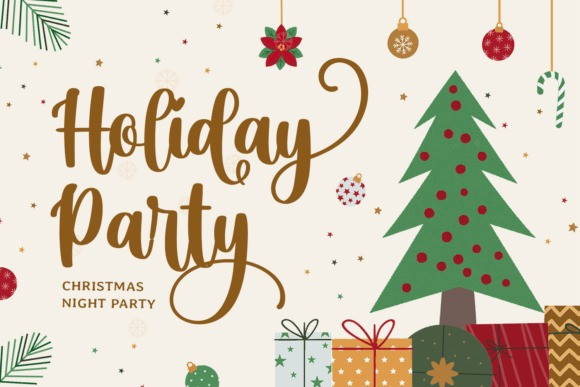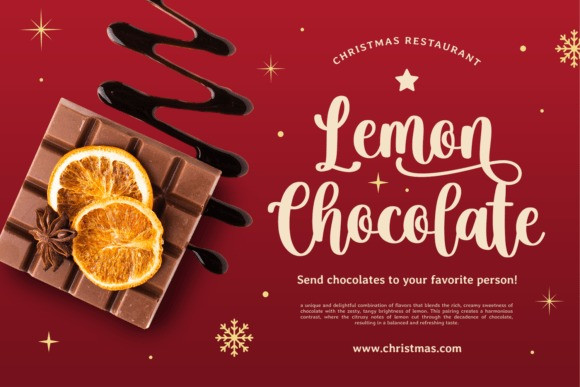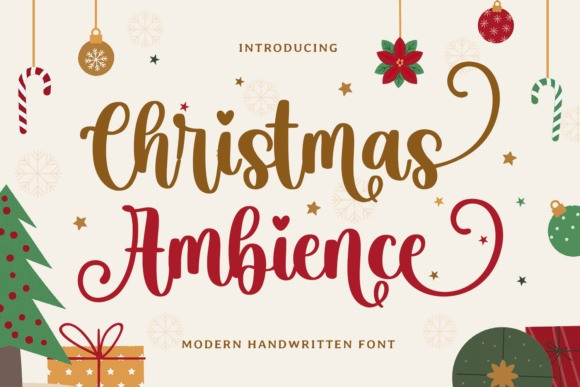
Christmas Ambience Script Font is a stunning script font that embodies the warmth and charm of the holiday season. With its smooth monoline strokes and whimsical handwritten style, this font is perfect for Christmas, New Year, winter, Easter, Thanksgiving, and festive craft projects. Its elegant yet playful design makes it a versatile choice for both decorative and functional creations.